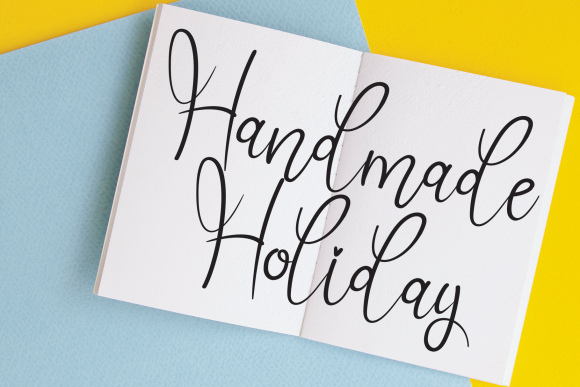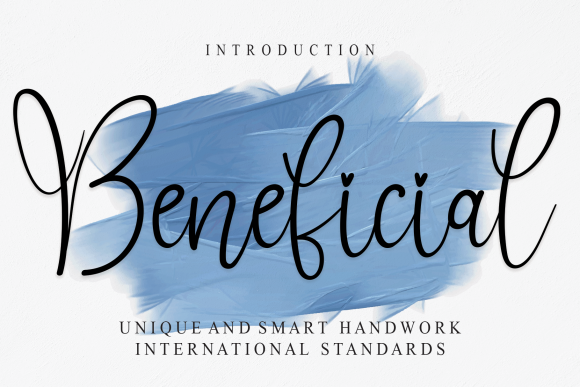
Introducing Beneficial Font: Elevate Your Designs with Elegance
In the world of typography, a font can make or break a design. It’s the foundation upon which your creative vision is built, and when chosen wisely, it can elevate your project to new heights. If you’re a designer, craftsperson, or simply someone who appreciates the art of beautiful typography, you’re in luck. Beneficial Font is a stunning, well-balanced, and delicate handwritten font that’s poised to become your new go-to for fashion branding, editorial designs, and so much more.
The Beauty of Beneficial Font
So, what sets Beneficial Font apart from the myriad of typefaces available today? The answer lies in its exquisite curves and balanced design. This handwritten font exudes a sense of elegance and sophistication, making it an ideal choice for projects that demand a touch of refinement. Whether you’re working on a luxury fashion brand, a high-end editorial piece, or any project that requires a dash of personality, Beneficial Font is sure to impress.
Perfect for Fashion Branding
Fashion branding is all about creating an identity that resonates with your audience, and typography plays a pivotal role in this process. Beneficial Font, with its beautiful, flowing curves, is tailor-made for fashion brands looking to make a statement. Its unique charm and character can add a layer of depth and personality to your brand’s visual identity, setting you apart from the competition. Imagine using Beneficial Font in a logo, on packaging, or in marketing materials – it’s sure to leave a lasting impression on your customers.
Elevate Your Editorial Designs
Editorial designs, including magazines, blogs, and books, require a font that’s not only readable but also visually appealing. Beneficial Font strikes the perfect balance between form and function. Its elegant design ensures that your content stands out, making it perfect for headings, titles, and even body text. With Beneficial Font, you can create editorial pieces that are not only informative but also a pleasure to look at.
Why Choose Beneficial Font?
With so many fonts available, why should you choose Beneficial Font for your next project? Here are a few compelling reasons:
• Elegance and Sophistication: Beneficial Font brings a level of elegance and sophistication to your designs that’s hard to match.
• Versatility: Its balanced design makes it suitable for a wide range of projects, from fashion branding to editorial designs.
• Easy to Read: Despite its elegant curves, Beneficial Font remains highly readable, making it perfect for both headings and body text.
• Unique Character: It adds a unique touch to your designs, helping you stand out in a crowded market.
Getting Started with Beneficial Font
Tips for Using Beneficial Font
To get the most out of Beneficial Font, here are a few tips:
• Pair it with a Sans Serif: For a classic look, pair Beneficial Font with a clean sans serif font for contrast.
• Use it for Headings: Its elegant design makes it perfect for headings and titles, but don’t be afraid to use it for body text for a unique look.
• Experiment with Colors: While it looks great in black, Beneficial Font can also shine in subtle colors that match your brand’s palette.
Beneficial Font is more than just a typeface – it’s a design statement. With its beautiful curves, elegant design, and versatile nature, it’s poised to become a favorite among designers and crafters alike. Whether you’re working on a fashion brand, an editorial piece, or any project that demands a touch of elegance, Beneficial Font is a choice you won’t regret. So, why wait? Add Beneficial Font to your projects today and experience the transformation for yourself.